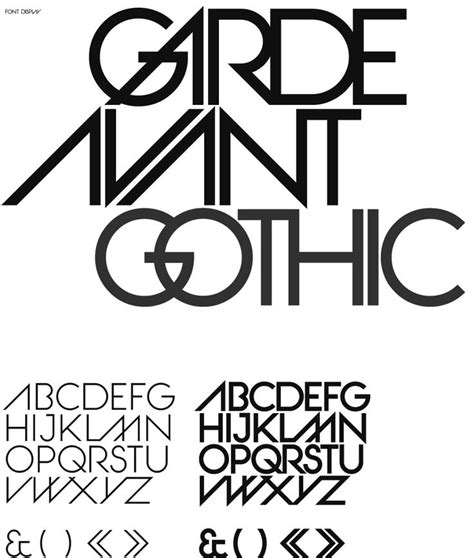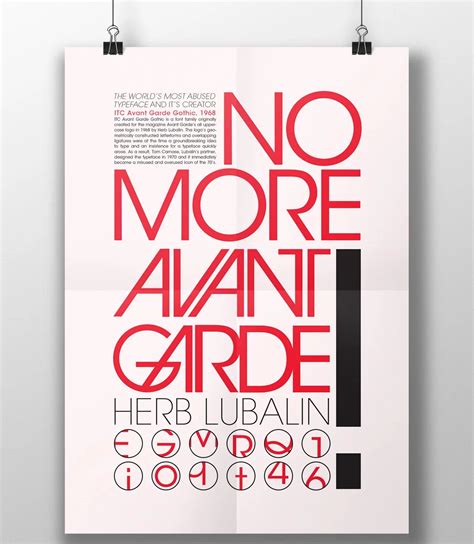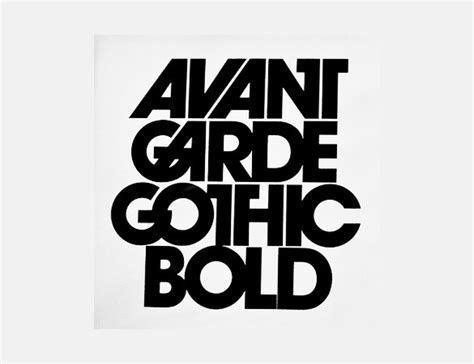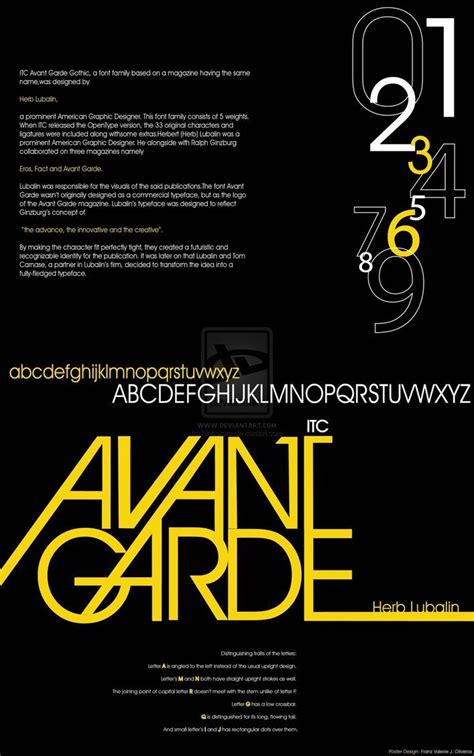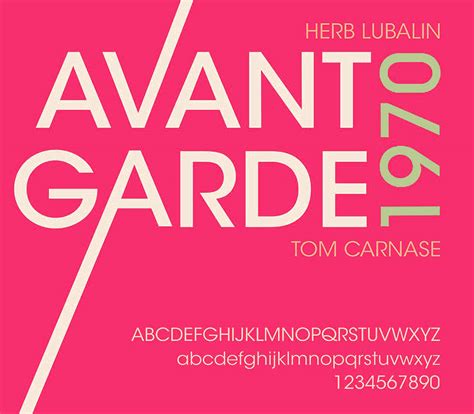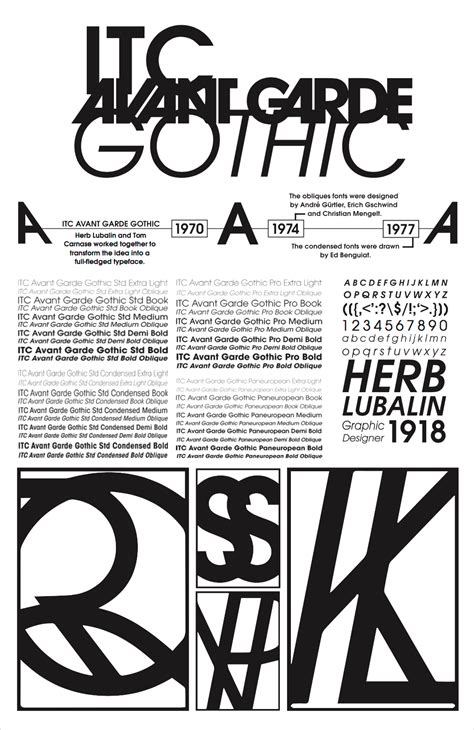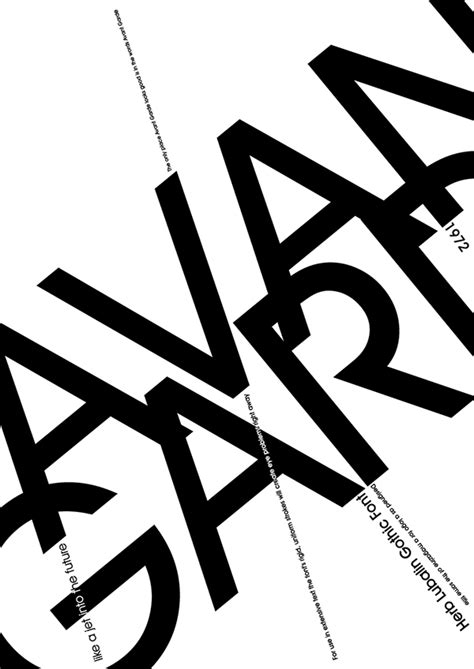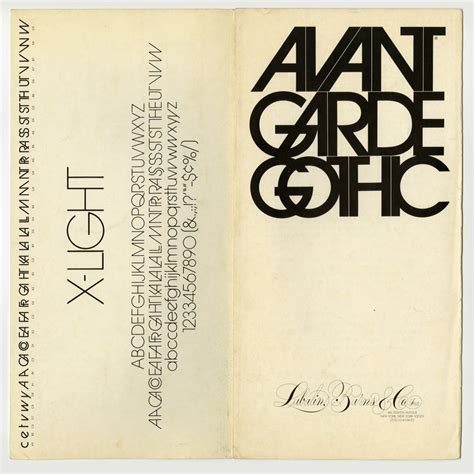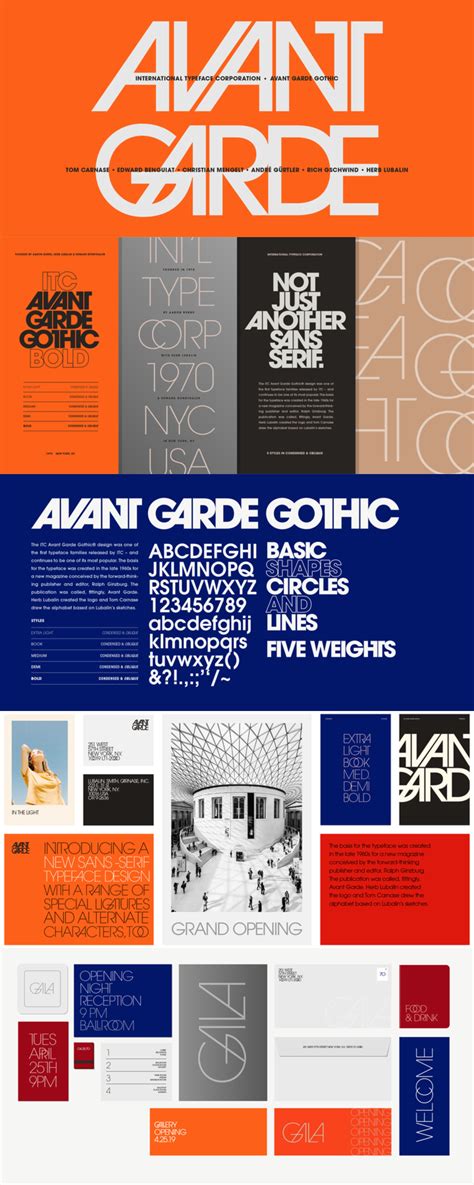
AVANT GARDE FONT
The term avant-garde font refers to a unique and often experimental style of typography that pushes the boundaries of traditional design. It is a bold and innovative approach to font creation, characterized by its unconventional shapes, unconventional letterforms, and a departure from the familiar. This style has been a significant influence on modern design, offering a fresh and daring aesthetic that captivates and challenges audiences.
Avant-garde fonts often incorporate geometric shapes and abstract forms, creating a sense of movement and dynamism. These fonts can be highly stylized, with distorted letters and unconventional spacing, making them stand out from the conventional serif and sans-serif fonts. The use of unconventional angles, curves, and asymmetrical arrangements is a hallmark of this design approach.
One of the key benefits of avant-garde fonts is their ability to grab attention and make a bold statement. They are often used in branding, advertising, and graphic design to create a memorable and distinctive visual impact. This style can evoke a sense of creativity, innovation, and a willingness to challenge the status quo, making it a powerful tool for designers seeking to make a unique impression.